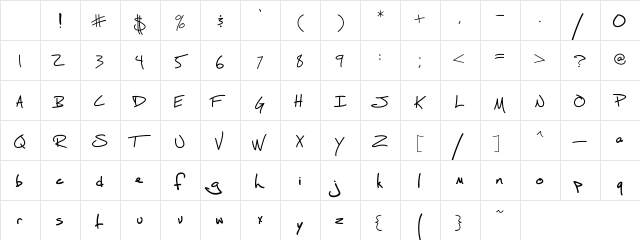
Complete Fh_Script Regular glyph index. Displaying only characters natively supported by Fh_Script Regular font.
Fh_Script flows with the natural rhythm of handwritten lettering, making it ideal for designs that call for warmth and personal expression.
Font Pairing: Combine Fh_Script with a simple geometric sans for maximum contrast - the tension between flowing curves and clean structure is a classic typographic pairing.
Pro Tip: Use Fh_Script for short runs of text - names, titles, or taglines. Extended body copy in script faces tires the eye quickly.